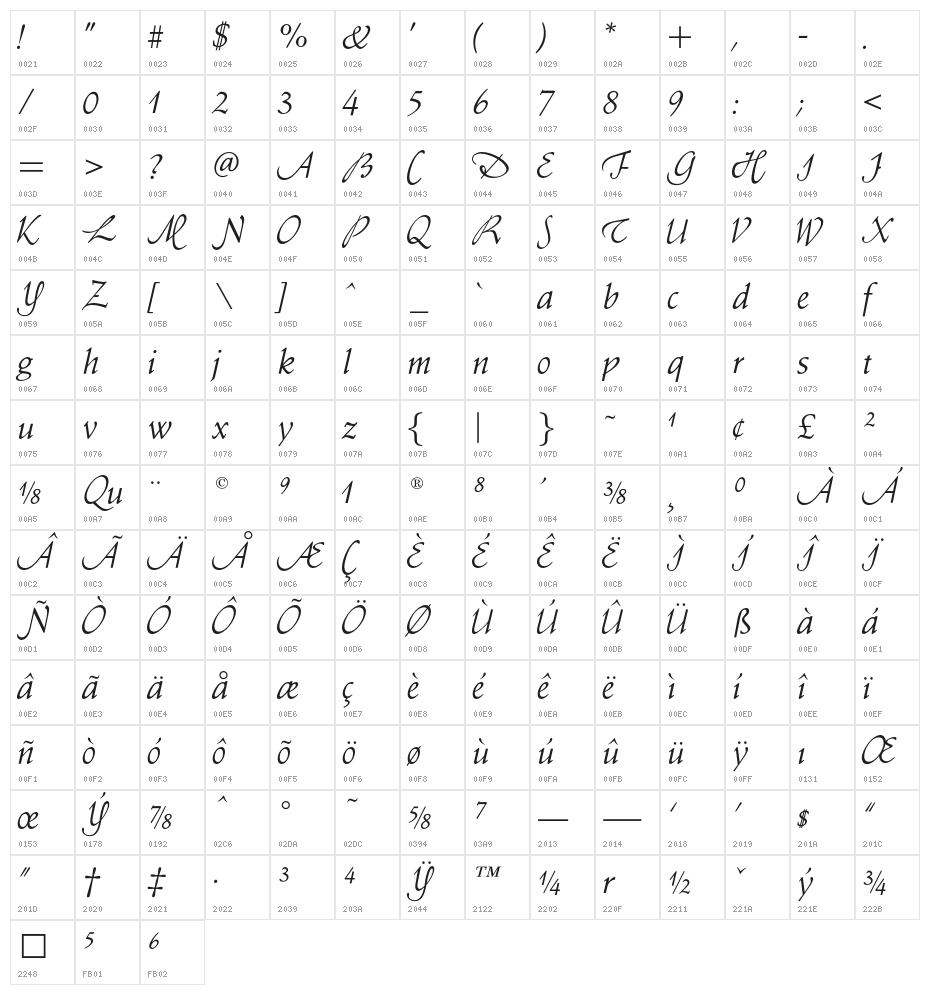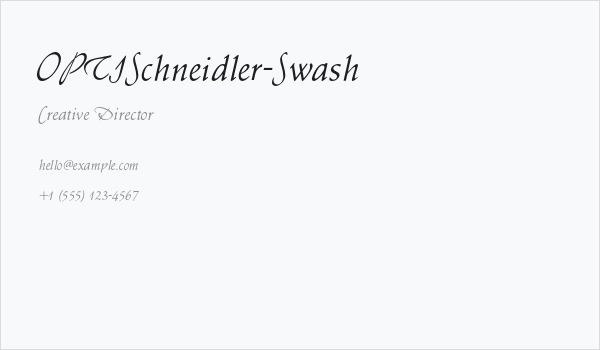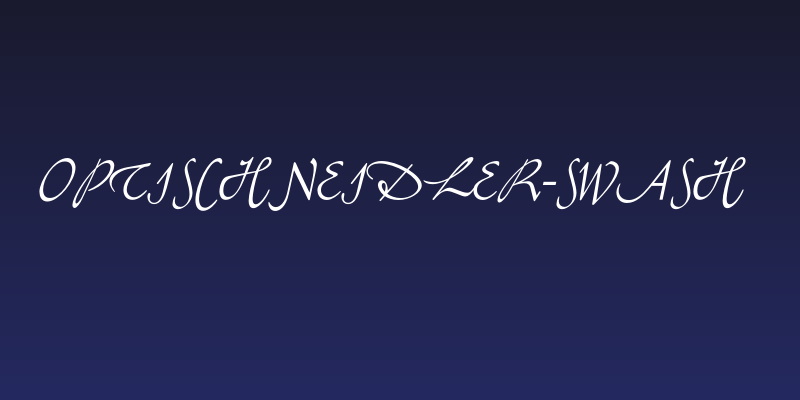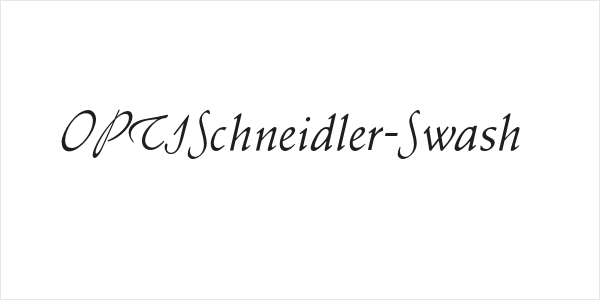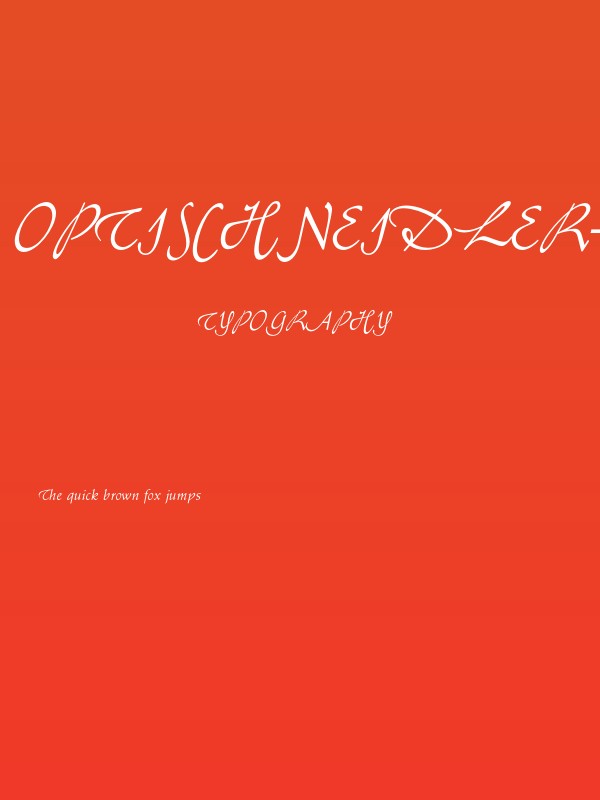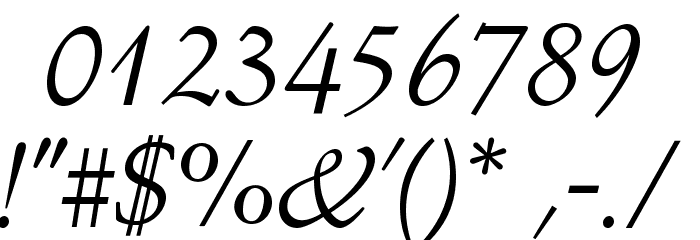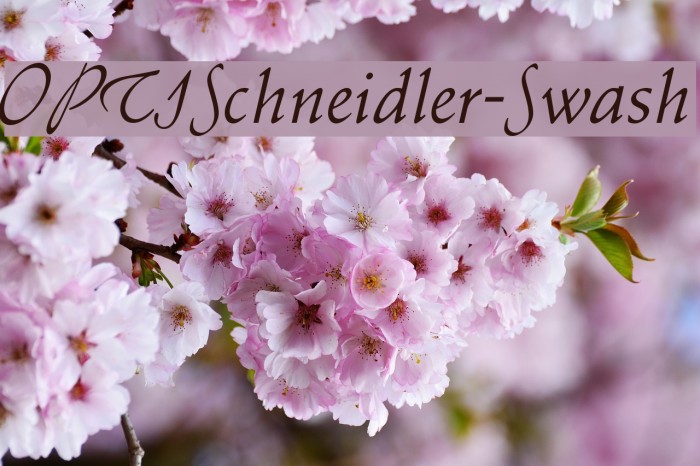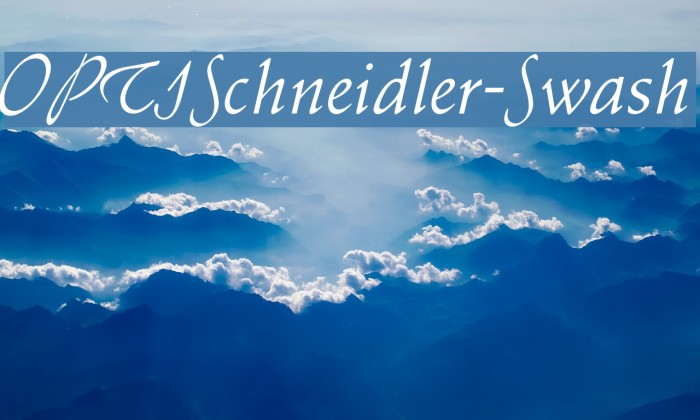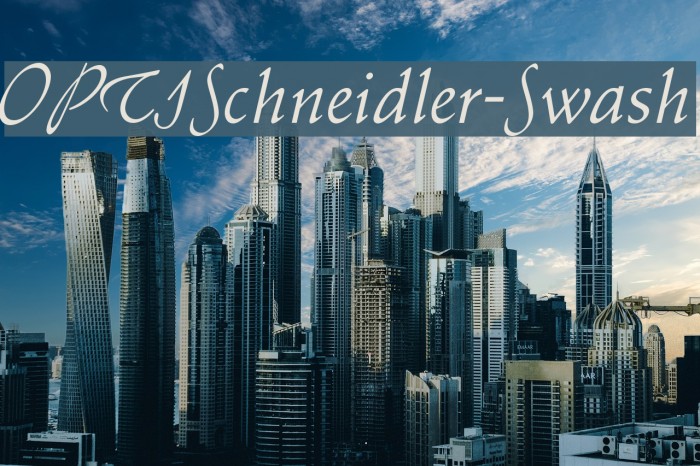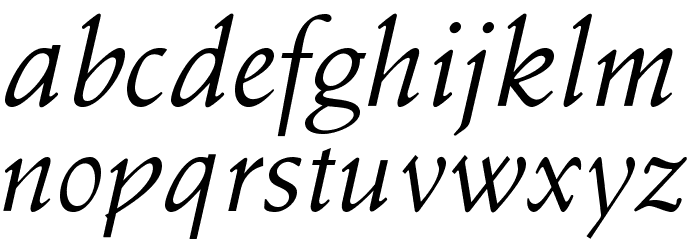
OPTISchneidler-Swash Font
OPTISchneidler-Swash Description
This elegant and sophisticated font features a flowing, cursive style with swash elements that add a touch of flair to each character. The uppercase letters are particularly ornate, with sweeping lines and delicate curves that give a sense of movement and grace. The lowercase letters maintain a consistent style, offering a harmonious blend of readability and decorative appeal. Numbers and special characters are crafted with the same attention to detail, ensuring a cohesive look across all text elements. The font's overall design is reminiscent of classic calligraphy, making it ideal for projects that require a touch of elegance and tradition.
| Overall Style | Classic |
| Use Case | Headlines, Invitations, Logos |
| Proposed Projects | Wedding invitations, formal event programs, luxury branding, elegant packaging design. |